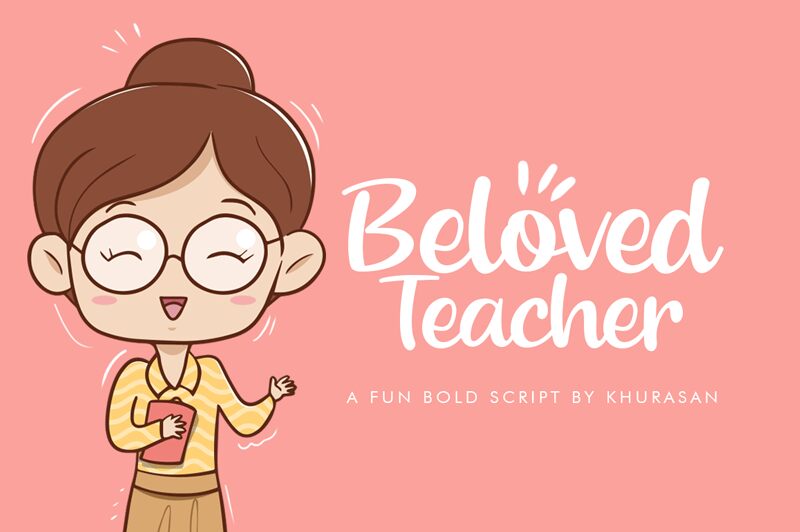
Beloved Teacher font family is a free-for-personal-use script family designed by Khurasan. Comprising two font styles, this modern and cheerful typeface is a beautiful choice to reflect bright and positive vibes. The letters are informal but elegant and arranged in a way to make your text readable and pleasant. Beloved Teacher consists of uppercase, lowercase, punctuation marks, and numeric digits.
The font could be just what you need for apparel designs, online posters, children’s books covers, birthday cards, and social media marketing materials. The expressive style would suit applications within restaurants, fictional novels, or educational institutions.